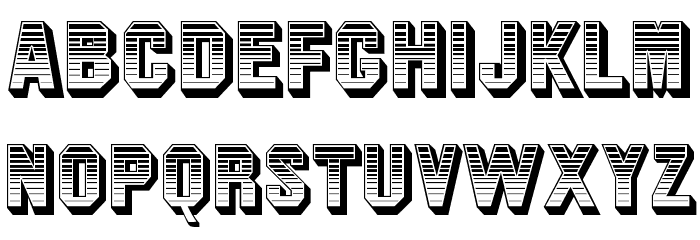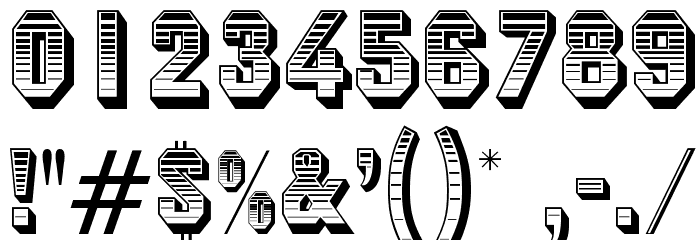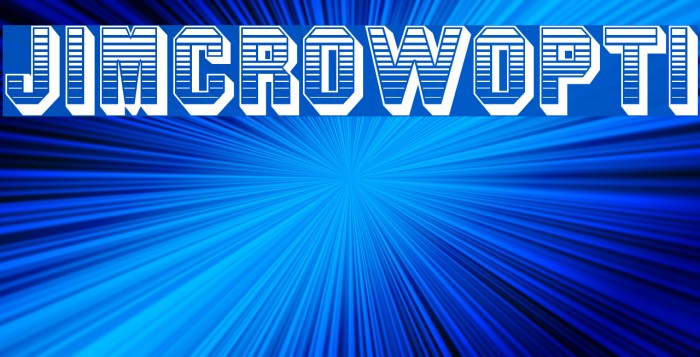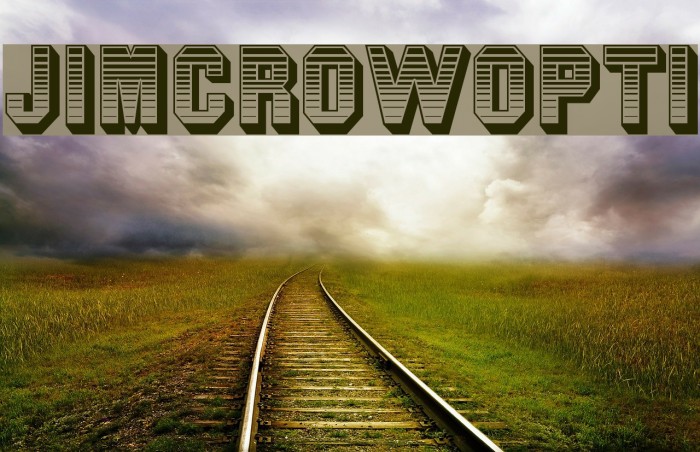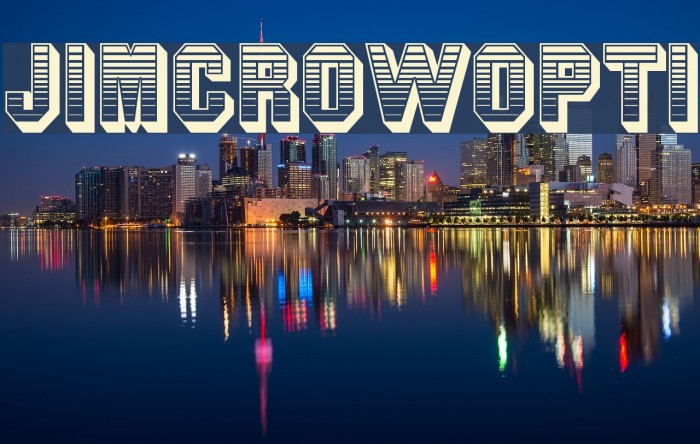
JimCrowOpti Font
This font features a bold, three-dimensional design with a distinct shadow effect that gives each character a sense of depth and volume. The uppercase letters are structured with a strong, geometric form, while the lowercase letters maintain a consistent style that complements the uppercase set. Numbers and special characters are designed with the same bold, shadowed effect, ensuring uniformity across all elements. The font's unique style is characterized by its striped pattern within each character, adding an extra layer of visual interest. This decorative style is both eye-catching and versatile, suitable for a variety of creative applications.
A bold, three-dimensional font with a shadow effect and striped pattern.
- Proposed Projects: Ideal for poster designs, logos, headlines, and any project requiring a striking, decorative typeface.